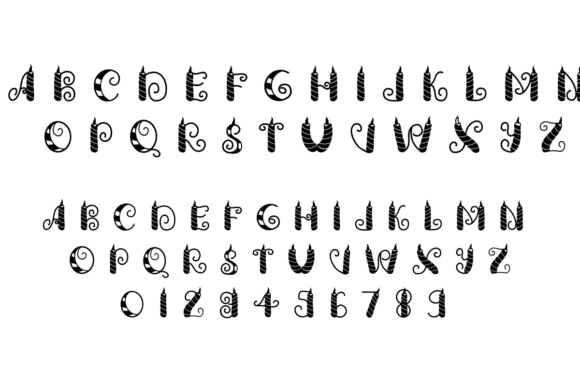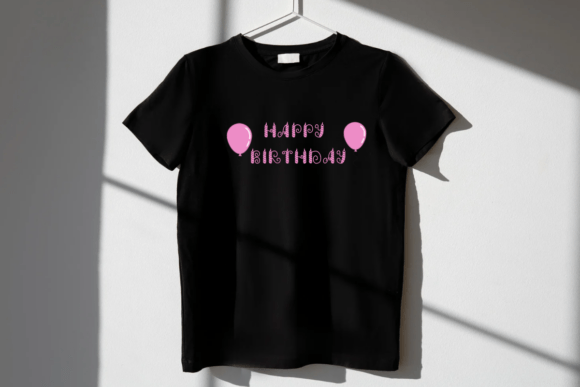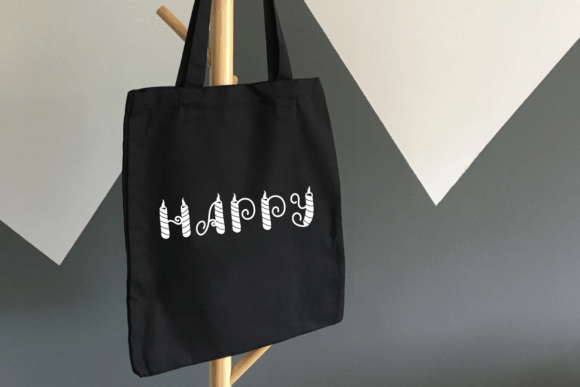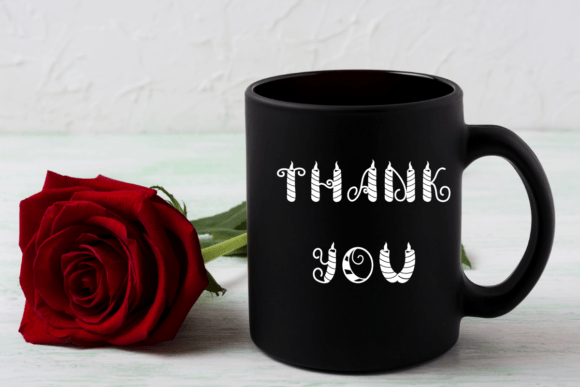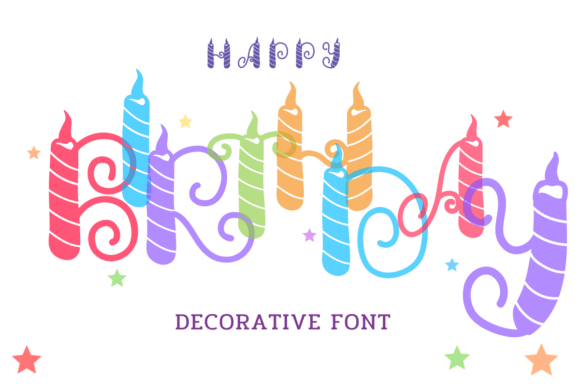
Happy Birthday Font: The Ultimate Decorative Font for Your Creative Projects
Are you looking for a unique and festive font to add a personal touch to your designs? Look no further than the Happy Birthday font! This decorative font features candle letters that are sure to bring a smile to anyone’s face. In this article, we’ll explore the versatility of the Happy Birthday font and how you can use it to take your creative projects to the next level.
What is Happy Birthday Font?
The Happy Birthday font is a digital font designed to resemble handwritten letters with a festive touch. The font features bold, cursive letters adorned with candle-like decorations, making it perfect for birthday-themed designs. The font is highly legible and can be used for a variety of creative projects, from greeting cards to social media posts.
Uses of Happy Birthday Font
The Happy Birthday font is incredibly versatile and can be used for a wide range of creative projects. Here are some ideas to get you started:
- Note-taking and journaling: Add a personal touch to your notes and diary entries with the Happy Birthday font. It’s perfect for writing down special memories or creating a unique journal.
- Greeting cards: Create custom birthday greeting cards for friends and family. The Happy Birthday font is sure to make your cards stand out.
- Banners and signs: Use the Happy Birthday font to create eye-catching banners and signs for parties, events, or special occasions.
- Mugs and water bottles: Design custom mugs and water bottles with the Happy Birthday font for a unique and personalized gift.
- Social media posts: Add a touch of festivity to your social media posts with the Happy Birthday font. It’s perfect for creating engaging and shareable content.
- Stationery and invitations: Use the Happy Birthday font to create custom stationery, invitations, and thank-you cards.
- Shirts and apparel: Design custom t-shirts, hoodies, and other apparel with the Happy Birthday font for a unique and personalized gift.
Benefits of Using Happy Birthday Font
The Happy Birthday font offers several benefits for designers and crafters. Here are a few:
- Unique and festive: The Happy Birthday font adds a touch of festivity and uniqueness to any design.
- Highly legible: The font is highly legible, making it perfect for use in a variety of creative projects.
- Versatile: The Happy Birthday font can be used for a wide range of creative projects, from greeting cards to social media posts.
Tips for Using Happy Birthday Font
Here are a few tips for using the Happy Birthday font:
- Experiment with colors: The Happy Birthday font looks great in a variety of colors. Experiment with different colors to find the perfect look for your design.
- Pair with other fonts: The Happy Birthday font pairs well with other fonts. Experiment with different font combinations to create a unique look.
- Use for special occasions: The Happy Birthday font is perfect for special occasions like birthdays, anniversaries, and holidays.
The Happy Birthday font is a versatile and festive font that’s perfect for a wide range of creative projects. Whether you’re a designer, crafter, or simply someone who loves to create, this font is sure to bring a smile to your face. With its unique and decorative candle letters, the Happy Birthday font is the perfect addition to any design. So why not give it a try and see what amazing creations you can come up with?